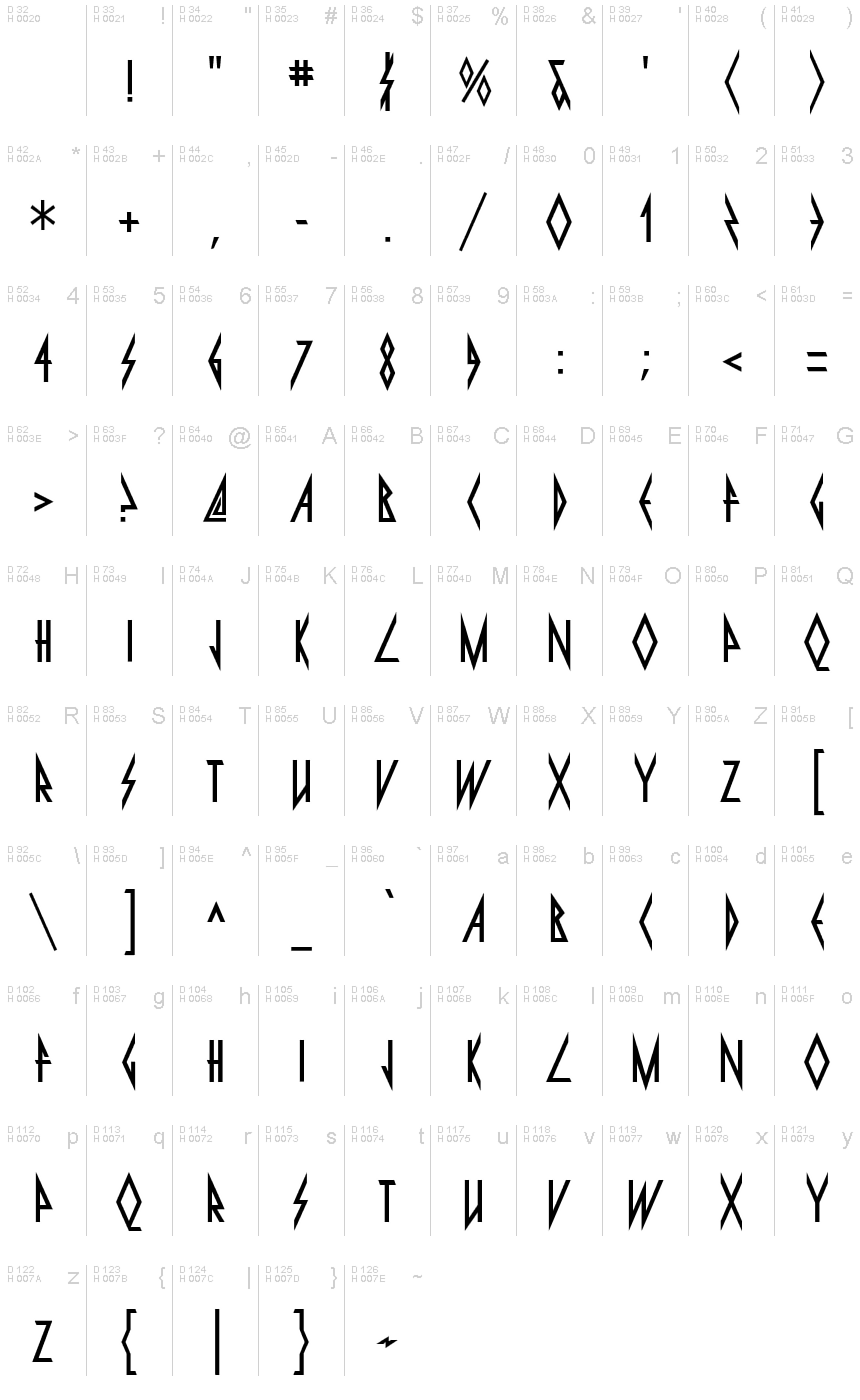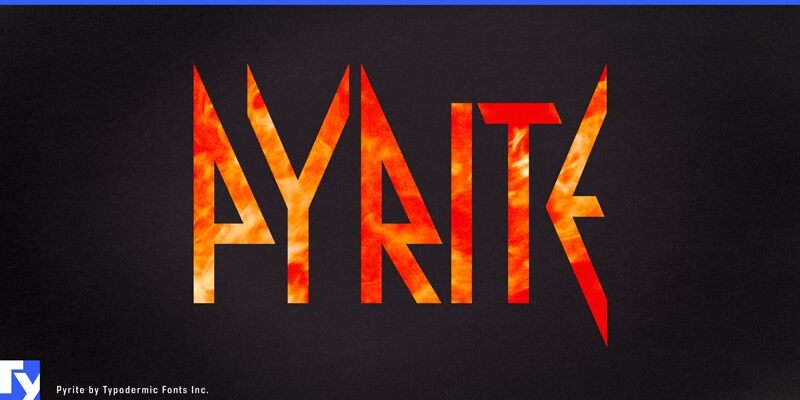
Pyrite-Regular
Pyrite is an angular, heavy metal display font. Pyrite has been updated with improved vertical metrics for cross-browser web performance. More languages are supported and accents have been redesigned. Spacing and kerning has been improved. More punctuation and math symbols have been added, as well as fractions and numeric ordinals. In OpenType savvy applications letters, the bottom stroke of the L will change depending on which letter follows it. Ligatures have been included for LL and OO pairs.